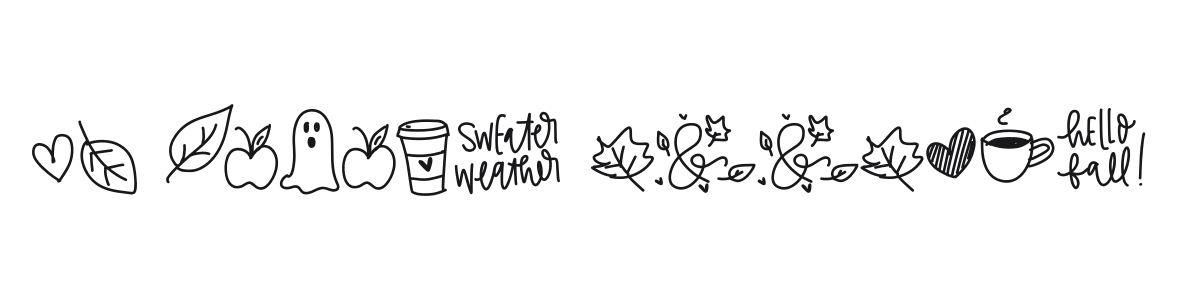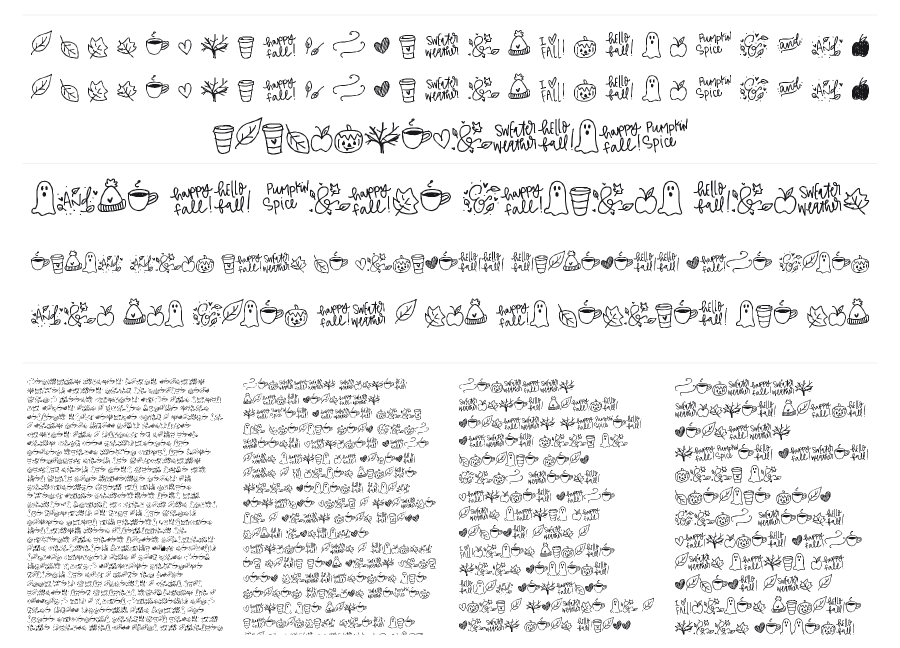
FB Autumn Doodles
FB Autumn Doodles is a seasonal dingbat font packed with hand-sketched fall and Halloween icons: coffee cups, pumpkins, leaves, ghosts, apples, and cozy phrase glyphs like 'sweater weather' and 'pumpkin spice'. The thin outline style has a loose, casual doodle quality that feels warm and handmade. Great for adding seasonal personality to social graphics, packaging, or stationery.